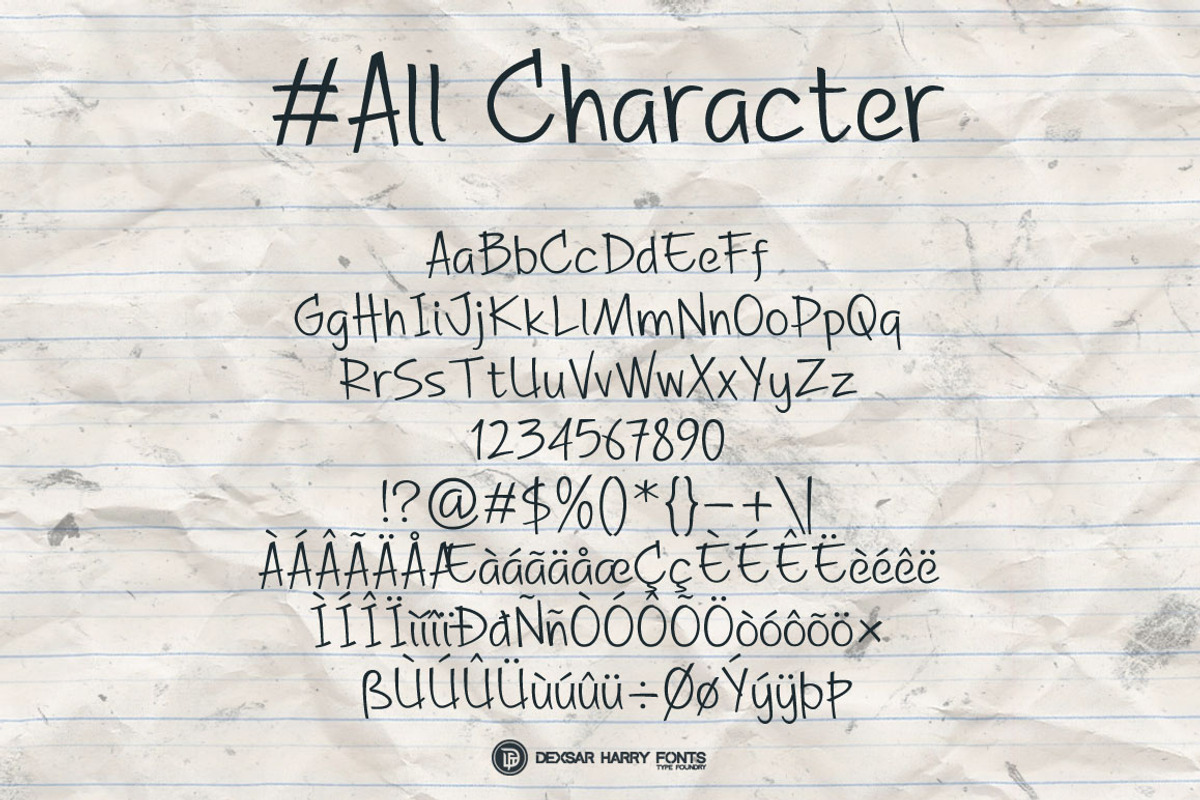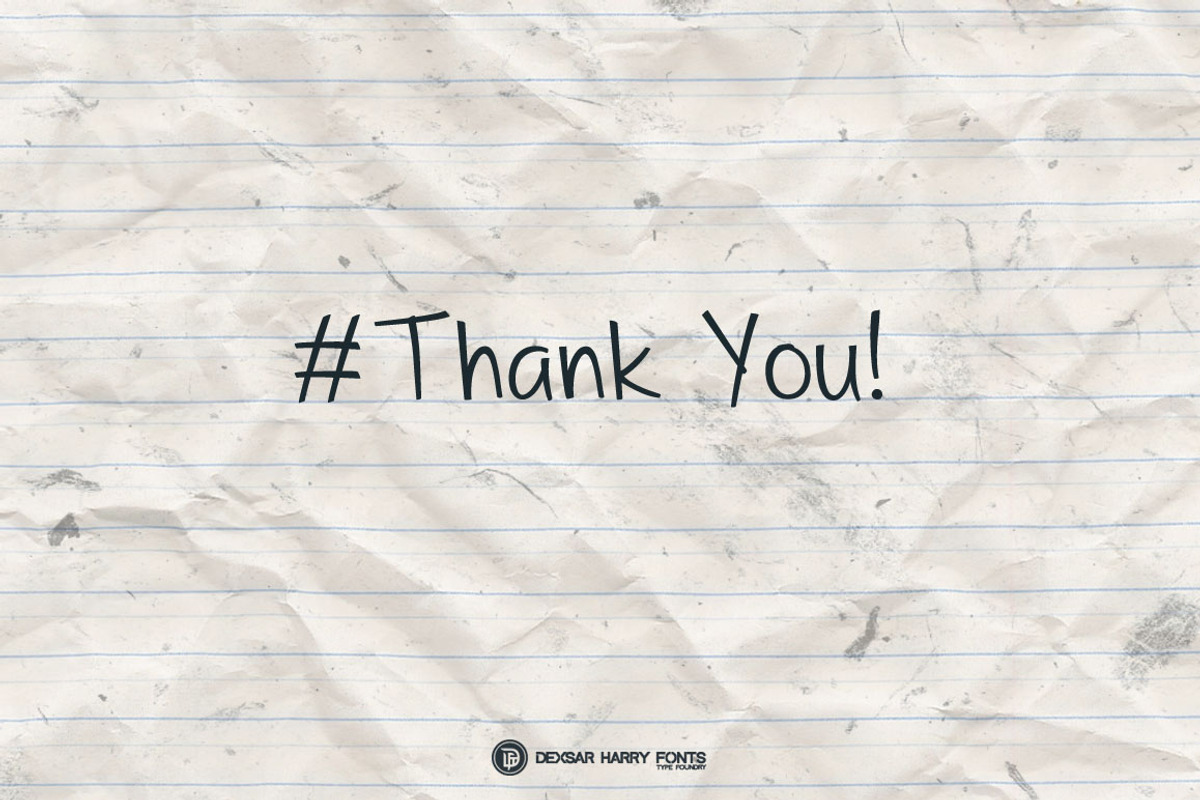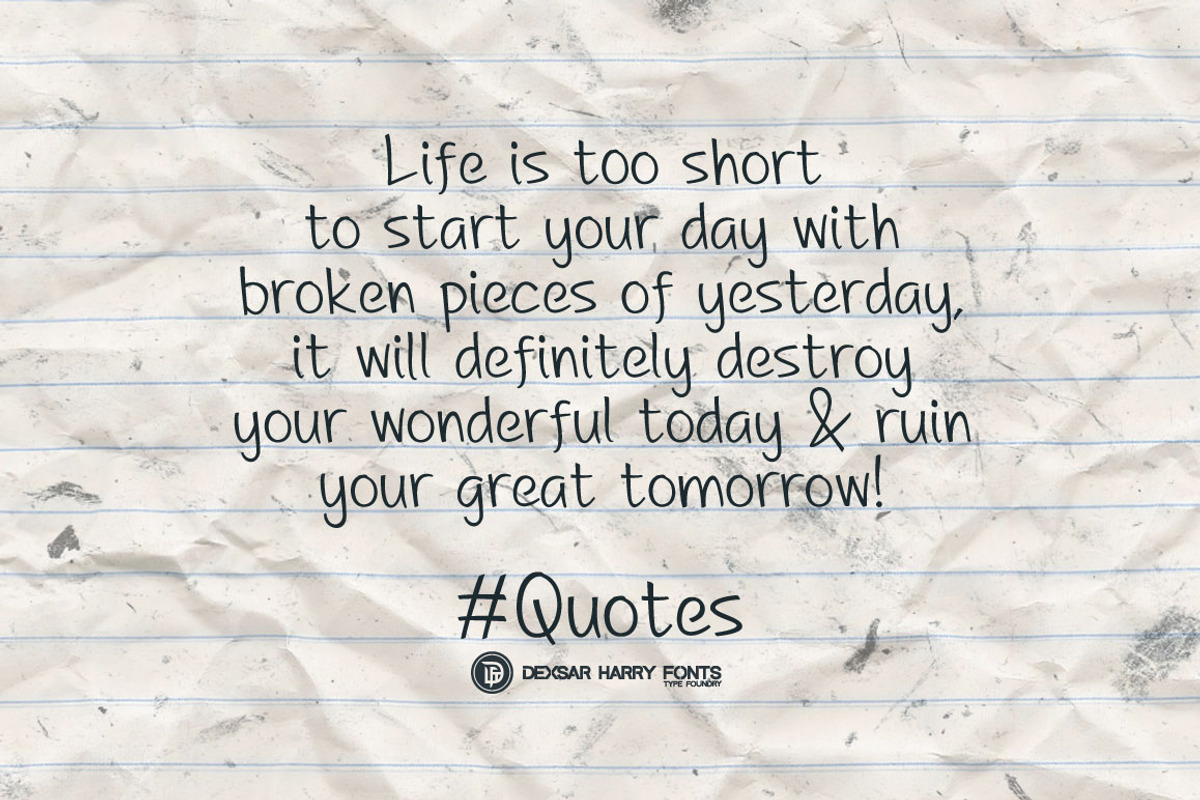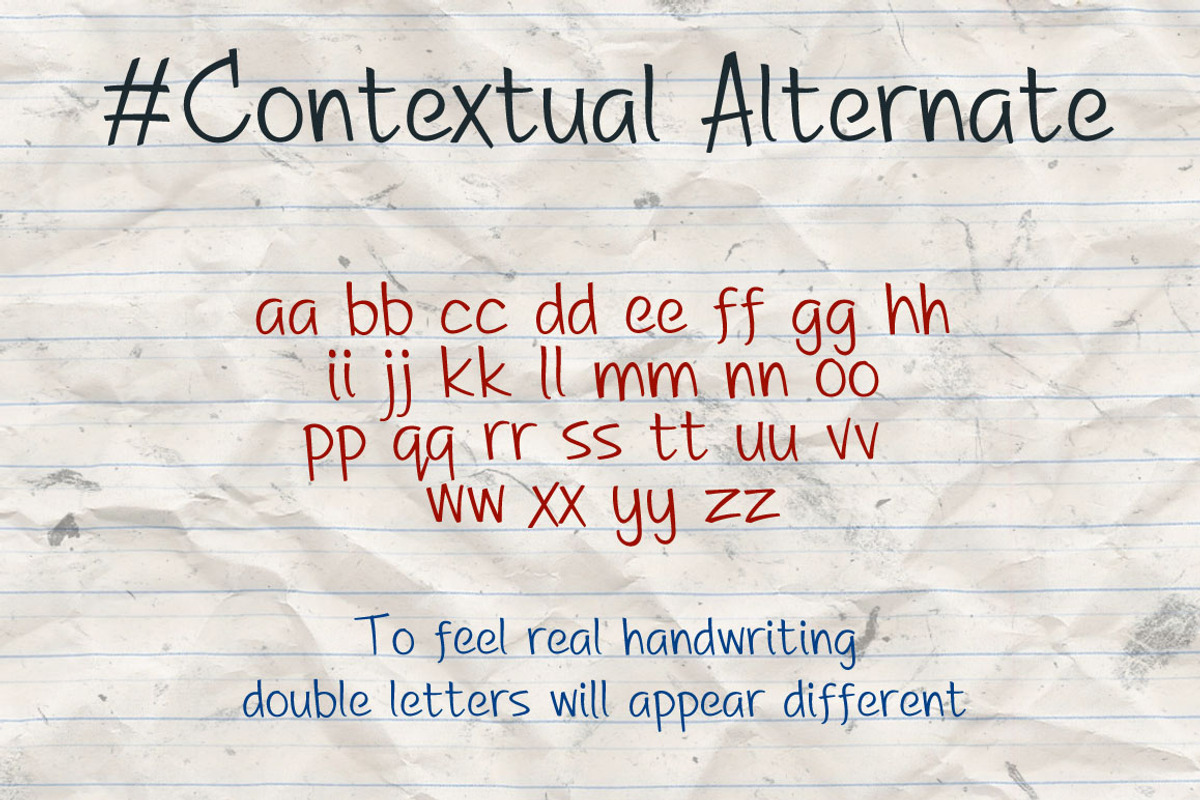
A Great Happiness - Handwritten Font
A Great Happiness - Handwritten Font by dexsarharryfonts is a font selected for branding, posters, packaging, typography.
- A Great Happiness is a Handwriting Font that comes with 261 Glyphs.
Why A Great Happiness - Handwritten Font is worth a look
A Great Happiness - Handwritten Font by dexsarharryfonts fits naturally into Branding, posters, packaging, typography.